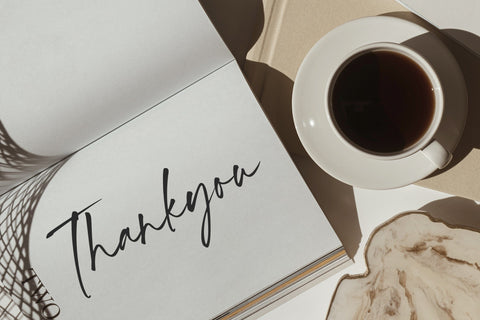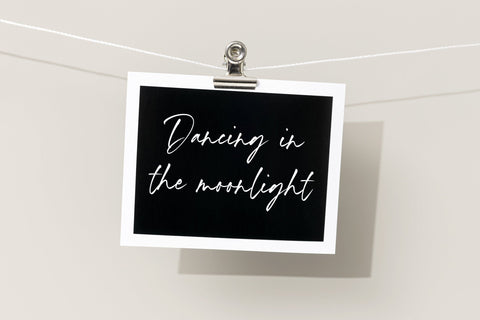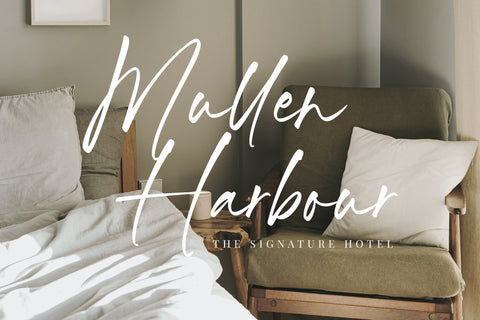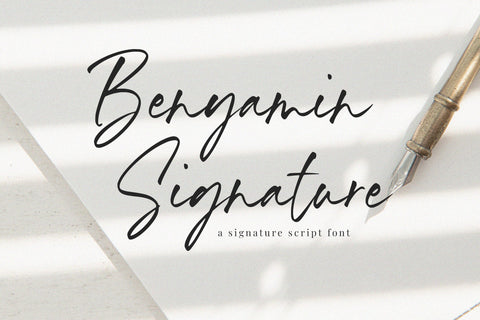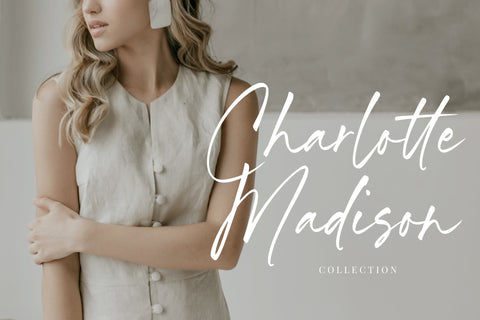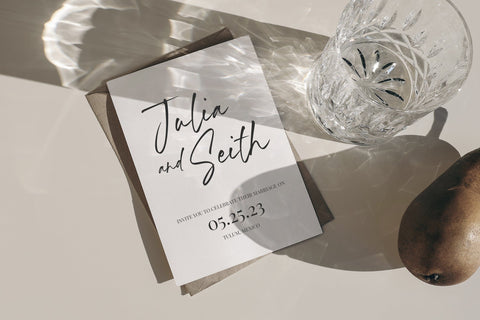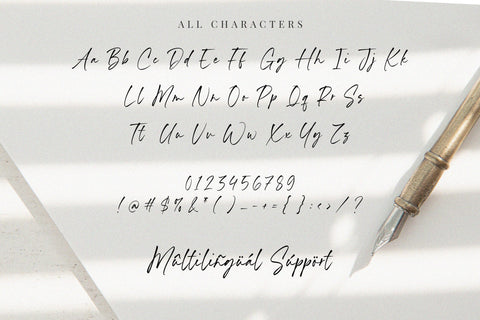
Benyamin Signature - Handwritten font
Proudly Present, Benyamin Signature
Benyamin Signature - Handwritten font , which was created with great care and specially created for you
Benyamin Signature is perfect for product packaging, branding project, megazine, social media, wedding, or just used to express words above the background.